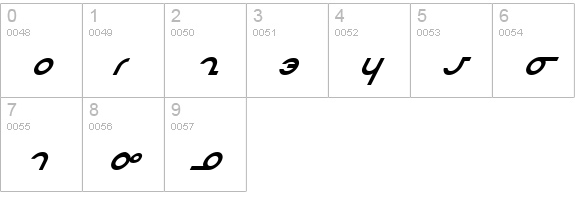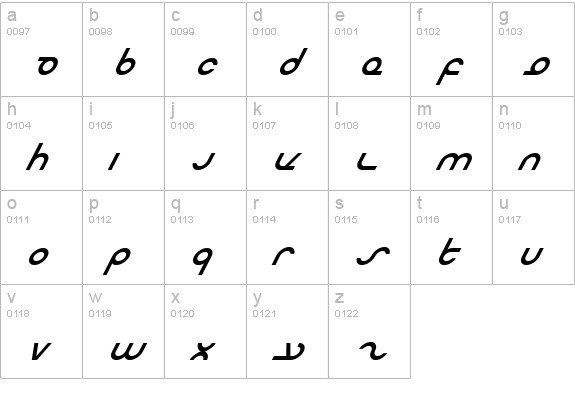
Masterdom Italic is a distinctive, italic variant in the Masterdom typeface family \xE2\x80\x94 well suited to design and typography projects.
Masterdom Italic font is a sleek and modern typeface designed to add a touch of elegance to any project. Its flowing lines and sophisticated curves give it a sense of refinement and style that is perfect for a variety of design applications. Whether you're creating a logo, branding materials, or a stylish website, Masterdom Italic font will elevate your work to the next level. The italic style of Masterdom adds a sense of movement and flair to the text, making it stand out and capture the viewer's attention. Its versatility allows it to be used in both headlines and body text, providing a cohesive and polished look throughout your design. And the best part? Masterdom Italic font is completely free to download at FontsMarket.com. This means you can access this high-quality typeface without any cost, making it a valuable addition to your font collection. Don't miss out on the opportunity to enhance your designs with the beauty and sophistication of Masterdom Italic font. Download it today and start creating stunning typography that will impress your audience.